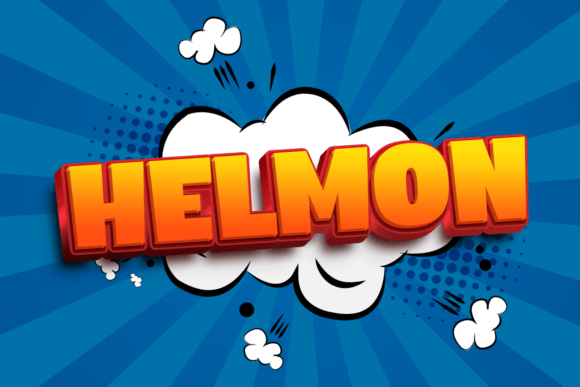
Introducing Helmon Font: A World of Wonder Awaits
Embark on a delightful journey into the realm of imagination with Helmon Font, a charming display font exuding childlike wonder and playful exuberance. Dive into a sea of creativity, where whimsical characters dance across the screen, captivating young minds and igniting boundless possibilities.
With Helmon Font, transform ordinary designs into extraordinary adventures. Its bold, chunky strokes command attention, making every word pop with vibrant energy. Let your imagination soar as you craft eye-catching posters that transport viewers to enchanted lands, design book covers that spark curiosity and fuel dreams, or create apparel that reflects the vibrant spirit of youth.
Unleash your artistic flair and design banners that celebrate life's joyous moments. Craft advertising materials that burst with playful energy, leaving a lasting impression on your audience. Create cards that carry heartfelt messages, adorned with Helmon's cheerful characters. Design headlines that demand attention, and craft titles that ignite imaginations.
Helmon Font is the perfect companion for a myriad of creative projects. Its versatility knows no bounds, allowing you to weave magic into every aspect of your design. Whether you're a seasoned professional or just starting your creative journey, Helmon Font is your trusty guide, ready to transform your visions into reality.
So, embark on this enchanting adventure today and let Helmon Font be your compass. Discover a world of endless possibilities, where creativity reigns supreme and imagination knows no limits. Dive into the realm of Helmon Font and let your designs bloom with joy and wonder.